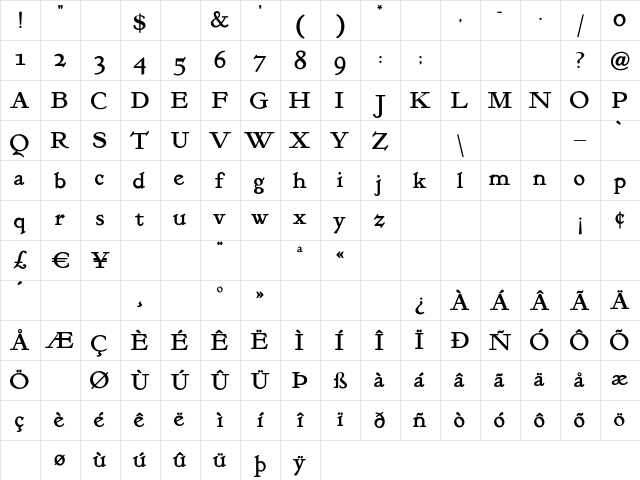
KelmscottRoman Regular
KelmscottRoman Family
Design Context for KelmscottRoman
KelmscottRoman is a composed and adaptable typeface that performs quietly and consistently across a wide range of design contexts.